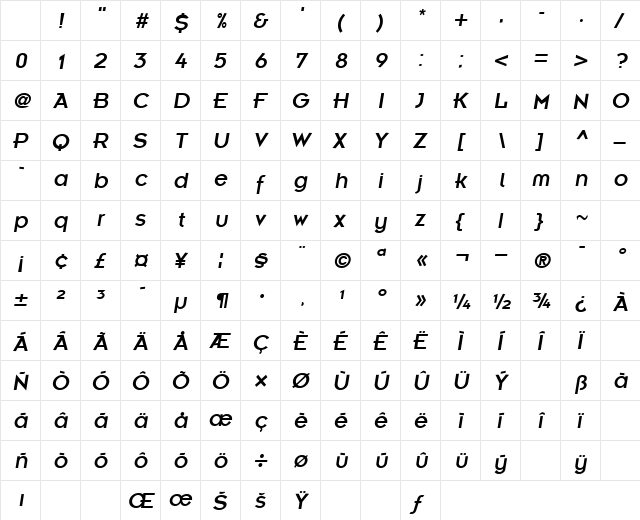
Helter is a composed and adaptable typeface that performs quietly and consistently across a wide range of design contexts. The slanted form adds forward momentum and visual energy.
Pro Tip: Use Helter for emphasis, pull quotes, and subheadings where its slanted energy can add rhythm to the layout.